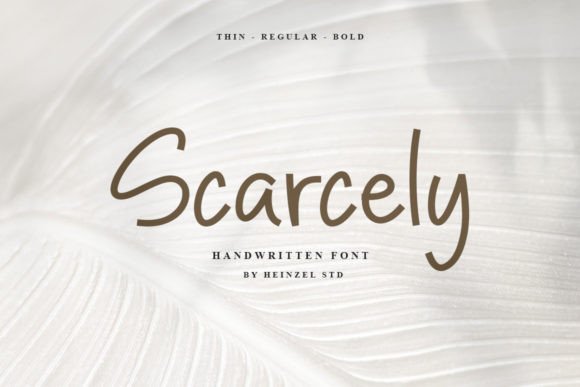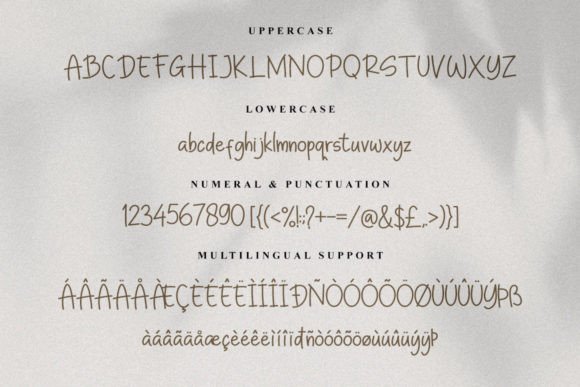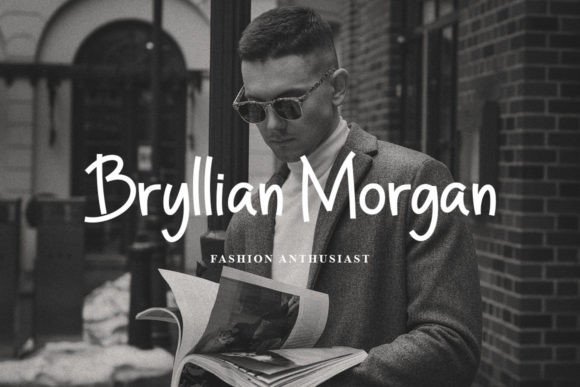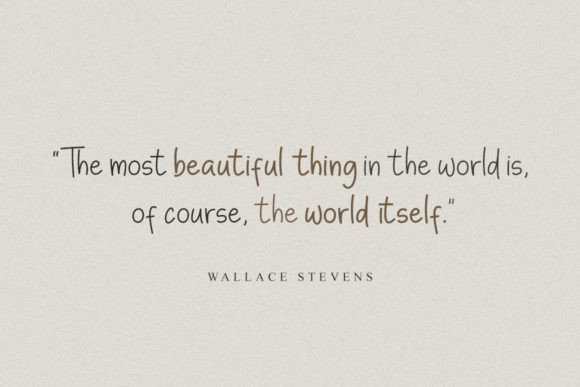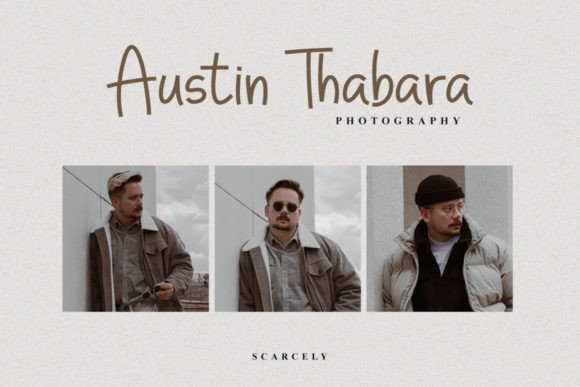
Introduction to Scarcely Font
As a designer, there’s nothing quite like the thrill of bringing a creative project to life. The moment when the words flow effortlessly onto the page, and the design starts to take shape – it’s pure magic. But what makes a design truly special? Is it the way the words dance across the page, or the subtle nuances that give it a personal touch?
For designers, finding the perfect font can be the difference between a good design and a great one. That’s where the Scarcely Font comes in – a beautiful, flowing handwritten font that’s perfect for adding an elegant touch to your designs. With its high-quality aesthetic and transparent background, this font is a valuable resource for any designer looking to elevate their creative project.
Key Features of Scarcely Font
- High-quality, professional font design perfect for creative projects and presentations.
- Features a transparent background, allowing for easy customization and blending with different backgrounds.
- Scarcely Font is designed to be highly versatile, suitable for a wide range of design applications, from logos to typography.
- Available in a single weight, making it easy to use in various design contexts without worrying about font weight inconsistencies.
Honest Review: Scarcely Font
I recently had the chance to experiment with the Scarcely Font, a high-quality design resource that caught my attention. Initially, I was drawn to its clean and minimalist aesthetic, making it perfect for a creative project requiring a sleek touch.
What works well: ✨ The Scarcely Font is incredibly versatile and can be used for a variety of purposes, from headings to body text. Its transparent background allows for seamless integration with any design element, adding a touch of sophistication to your project.
Here are some of its key features:
- Perfect for creative projects requiring a minimalist aesthetic
However, I did encounter a few limitations: ⚠️ The font may not be as effective for bold or dramatic headings, as it can appear somewhat plain. Additionally, some users may find the font’s simplicity too restrictive.
Overall, I was impressed with the Scarcely Font’s potential and would recommend it for designers looking for a clean and elegant solution for their creative projects. While it may not be suitable for every project, it’s definitely worth considering for its unique aesthetic and high-quality design.
Scarcely Font
The Scarcely Font is a versatile design resource ideal for creative projects. This high-quality font is available for free download and features a transparent background, making it perfect for various design applications.
Tips for Getting the Most Out of Scarcely Font
Experiment with different font sizes, colors, and combinations to get the most out of the Scarcely Font. This font is versatile and can be used in a variety of design contexts.
The Scarcely Font is ideal for use in logos, branding, and marketing materials. Its unique style and high-quality design make it a great choice for any creative project.